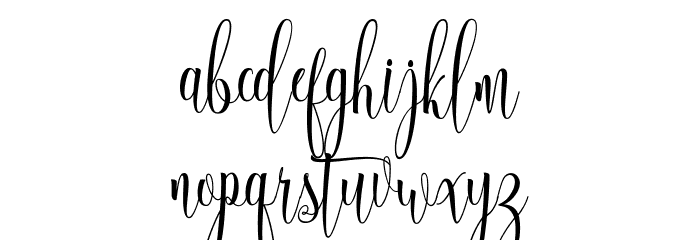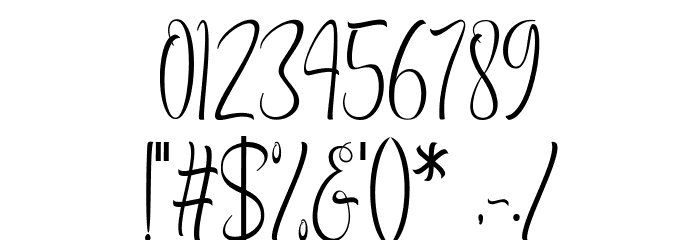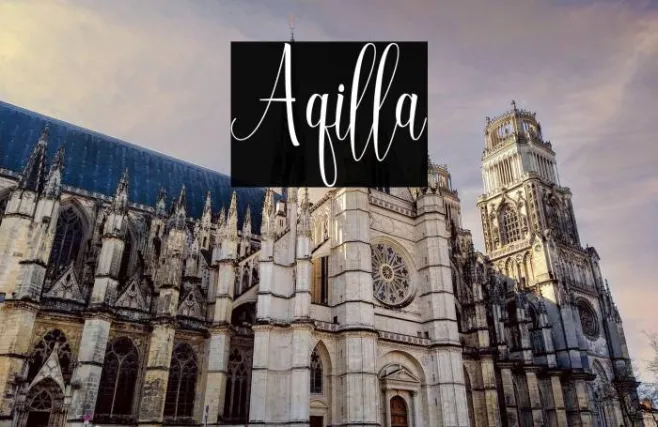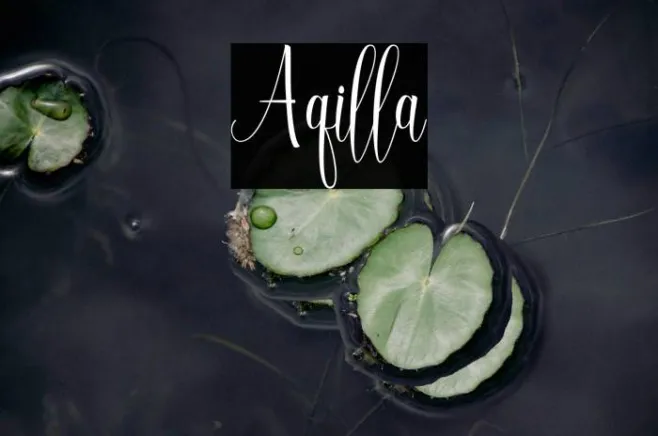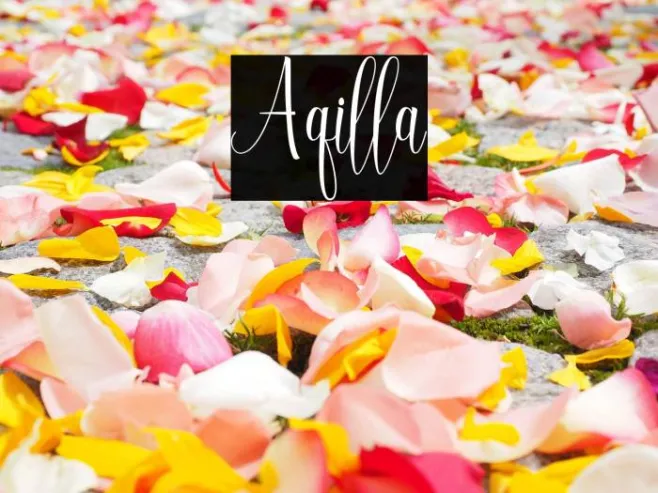
Aqilla Font
This font features an elegant and flowing script style, characterized by its graceful curves and fluid strokes. The uppercase letters exhibit a sophisticated flair with elongated lines and subtle flourishes, while the lowercase letters maintain a consistent rhythm with a slightly more compact form. The numerals are distinct and maintain the same flowing style, ensuring readability. Special characters are crafted with the same attention to detail, adding a touch of elegance to punctuation and symbols. This font's overall aesthetic is both stylish and versatile, making it suitable for a variety of design projects.
An elegant and flowing script font with graceful curves and fluid strokes.
- Font: Aqilla
- Proposed Projects: Ideal for wedding invitations, branding, greeting cards, and elegant packaging designs.
- Category: Script
- Overall Style: Elegant
- Use Case: Logos, Invitations, Decorative text